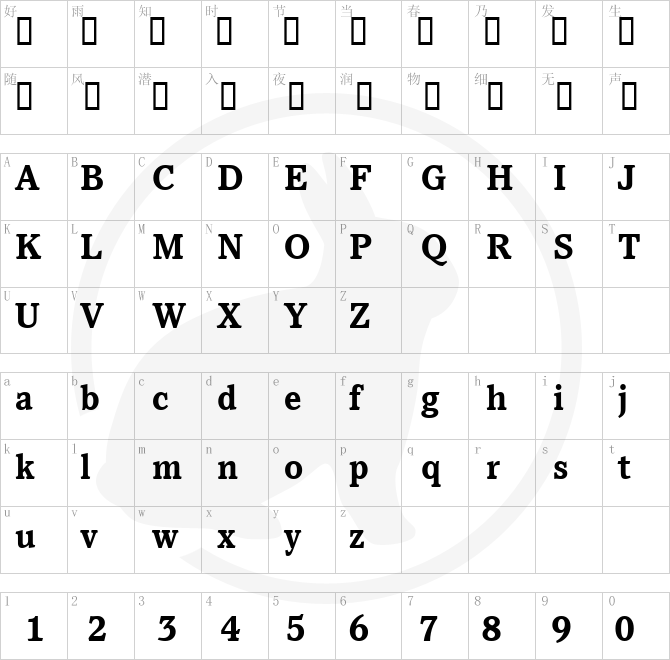
- Font Name:PacellaITCTT
PacellaITCTT-Bold.ttf is a very beautiful artistic font, PacellaITCTT-Bold.ttf is widely used in the design and printing of various books and pictures,PacellaITCTT-Bold.ttf has a strong visual impact,PacellaITCTT-Bold.ttf is a commonly used font in newspapers, magazines and books, and is used in posters, e-commerce Poster design, store design, logo design, font design and other fields.PacellaITCTT-Bold.